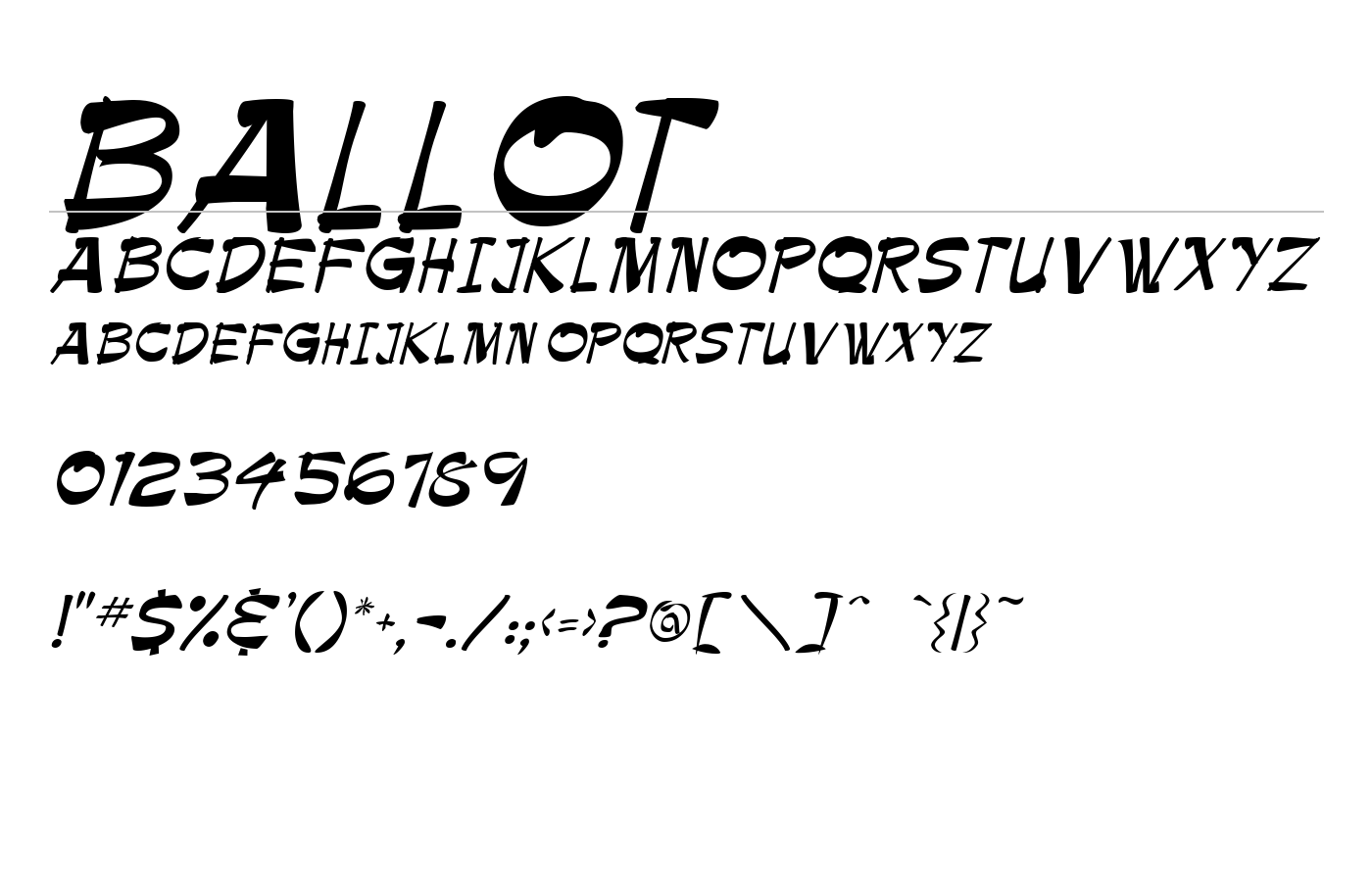
Ballot Font is a bold and playful sans serif typeface with a hand-drawn, slightly irregular style that gives it a lively and informal character. Its varied stroke widths and angled letterforms create a dynamic and energetic look, making it ideal for eye-catching headlines, creative projects, and casual branding where a friendly and approachable tone is desired. This font works best in designs that benefit from a fun, expressive personality without sacrificing readability.